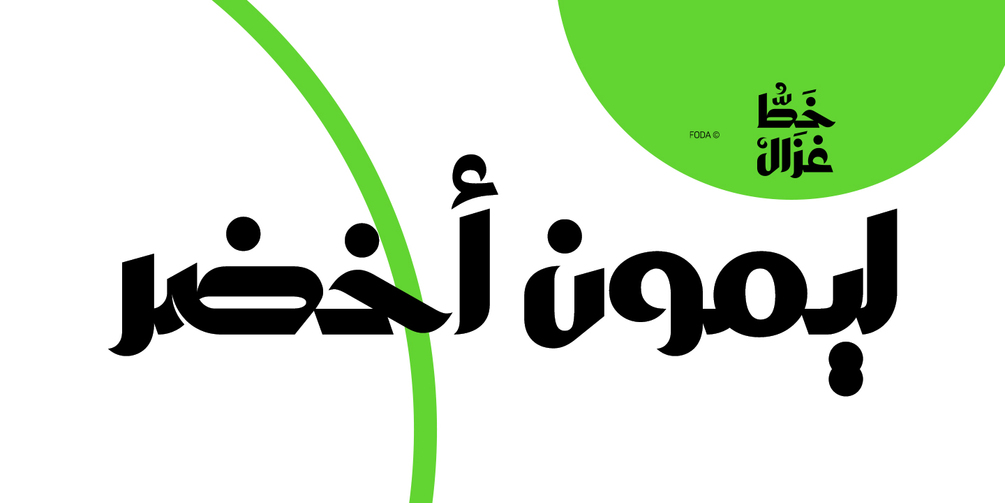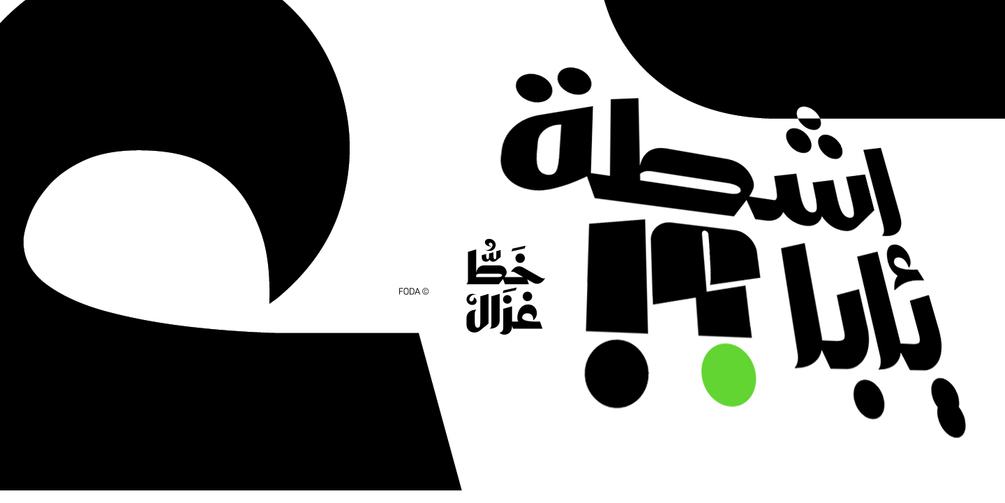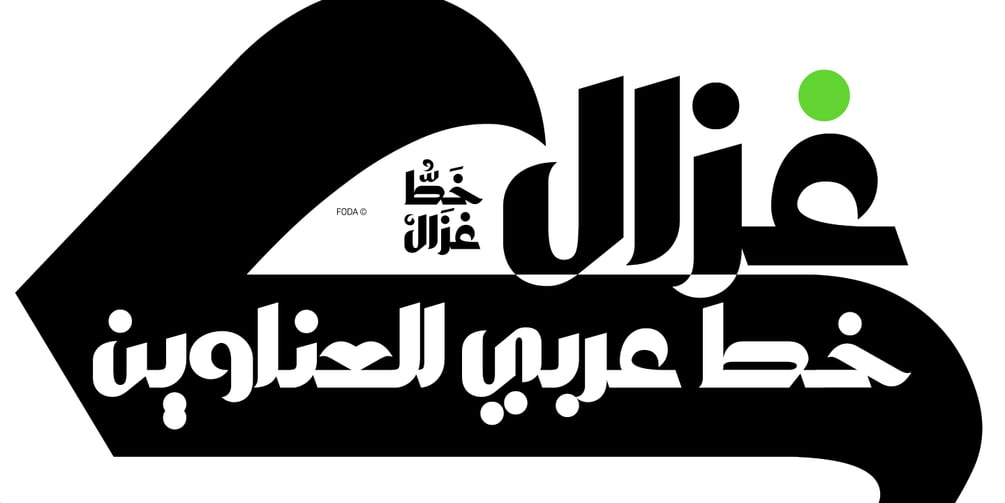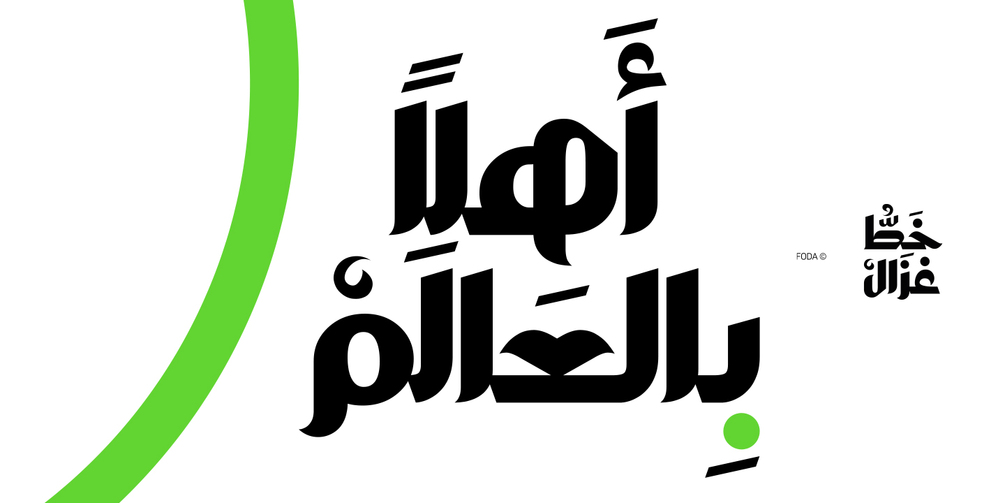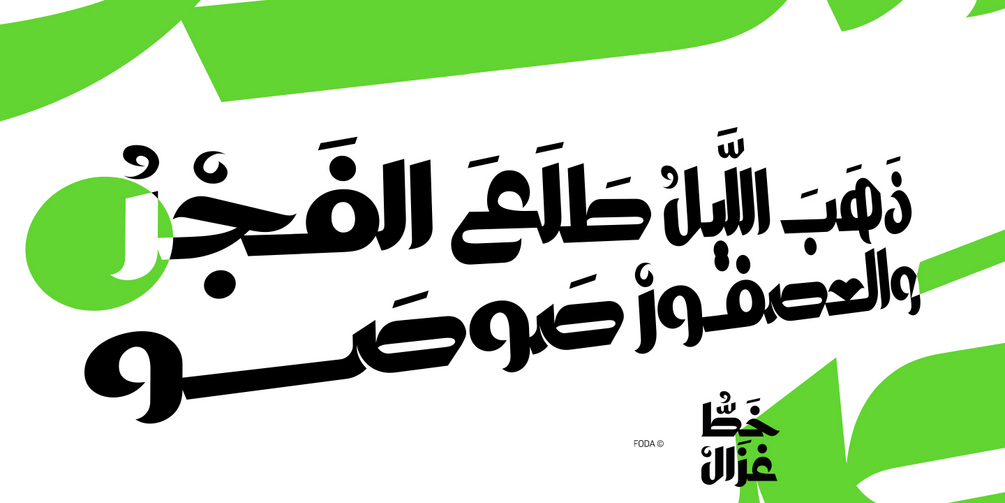
Ghazal display Arabic font
Ghazal is a display Arabic font with High contrast mainly used for headlines, it comes in single weight. This font is an excellent choice for all kinds of creative projects such as branding and advertising.